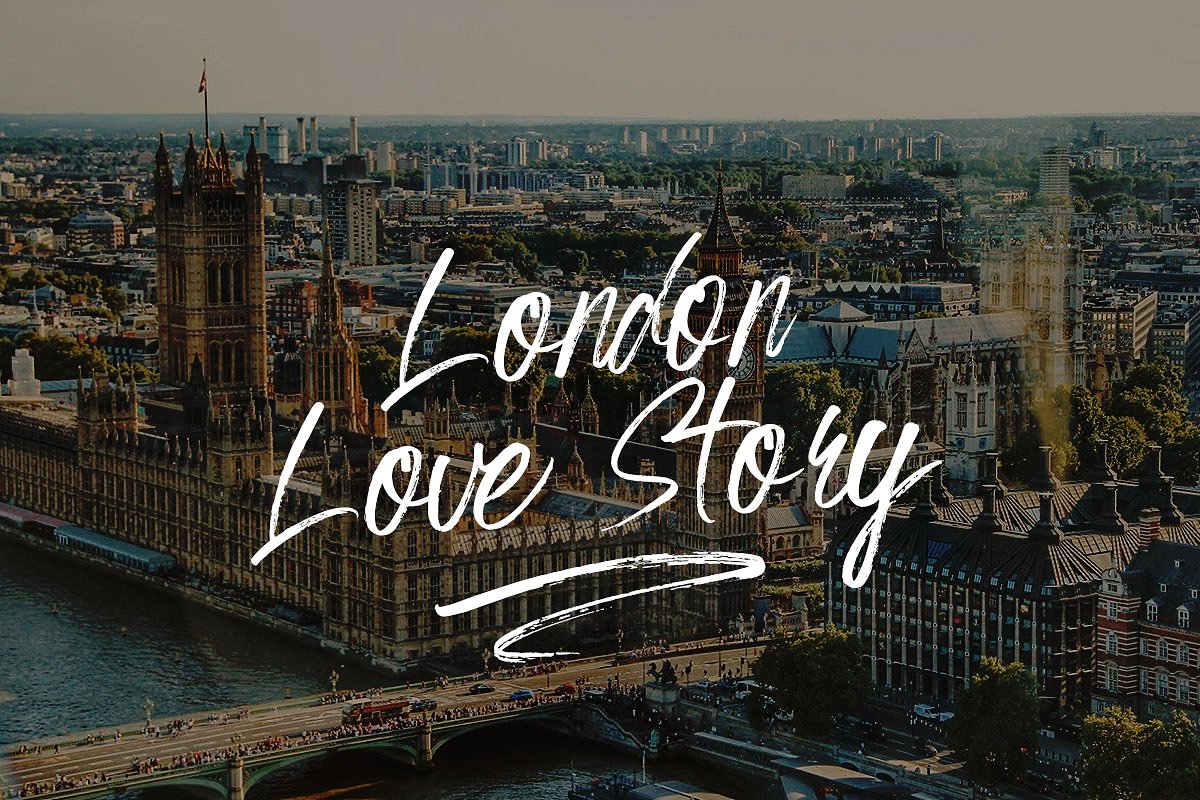
Grumpys
Grumpys Brush Font
Introducing, Grumpys a Textured Brush Font. This elegant font is awsome for various design. made with Original Texture from brush scratch make your design look so elegant. even this textured style but suitable for varous project like Logotype, Branding, Stationarry, T-Shirt Design, Card and many more.